In the food industry, customers often make visual decisions before they make purchasing decisions. A menu, logo, package, food truck sign, or promotional poster can instantly influence how people perceive a brand. Typography plays a major role in that first impression.
The best food fonts help businesses communicate flavor, personality, and brand identity through visual design. Whether you operate a bakery, restaurant, café, food truck, snack brand, beverage company, or catering service, the right font can make your business look more professional, memorable, and appealing. Typography is also a critical part of packaging design because it helps communicate quality, personality, and brand positioning.
Major food brands continue to invest heavily in custom typography because unique letterforms help improve recognition across packaging, menus, advertising, and digital platforms.
In this guide, we’ll explore 11 of the best food fonts, including two free options, that can elevate your branding, packaging, logos, menus, and marketing materials.
Initial Suggestion
Before selecting a food font, think about the experience you want customers to feel.
Match the Font to Your Food Category
Different food businesses require different personalities.
Examples:
- Bakeries often benefit from playful fonts.
- BBQ brands need bold and energetic typography.
- Fine dining restaurants usually prefer elegant fonts.
- Asian food brands often use culturally inspired letterforms.
Focus on Readability
A beautiful font should still be easy to read on:
- Menus
- Packaging
- Storefront signs
- Delivery apps
- Social media posts
Build Consistent Branding
The strongest food brands use typography consistently across all customer touchpoints. Consistent font usage improves recognition and creates a more professional identity.
Think Beyond the Logo
A great food font should work for:
- Logos
- Packaging
- Menus
- Posters
- Product labels
- Social media graphics
1. Fire Torch Flame Font (Free)
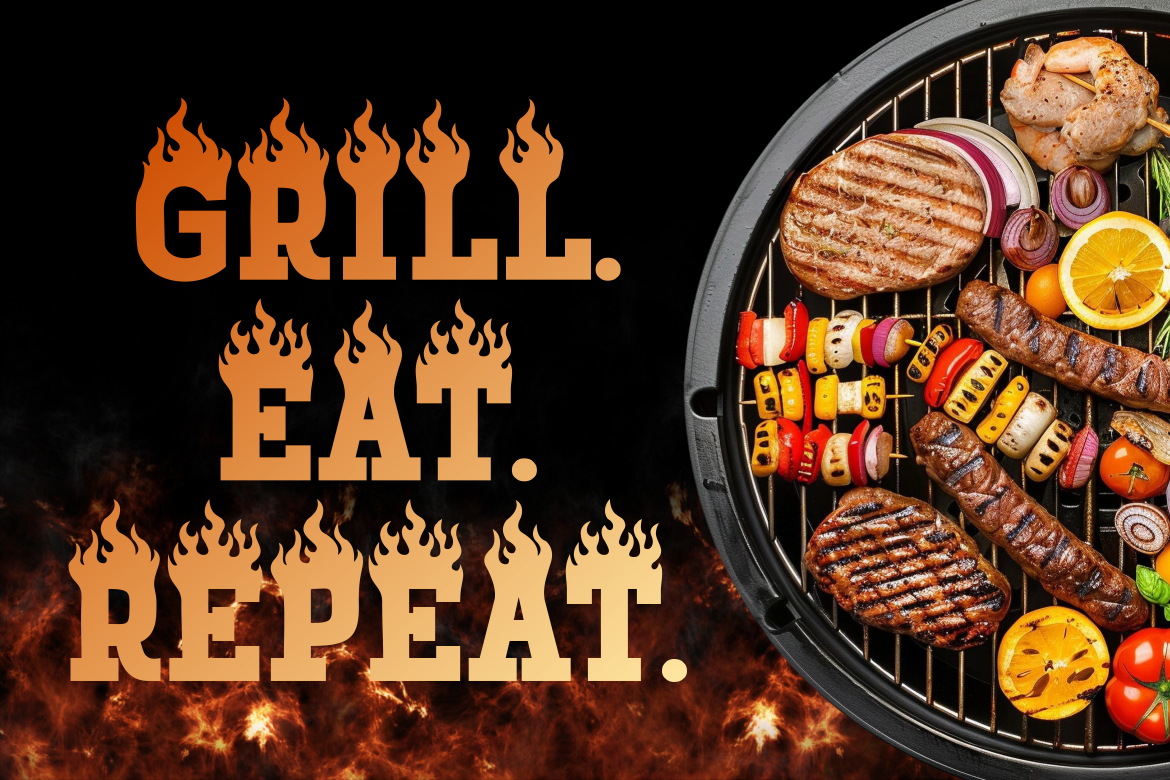
Fire Torch is a bold flame-inspired display font that immediately communicates heat, energy, and excitement. The dramatic fire effects built into the letterforms make it an excellent choice for food businesses that want to emphasize grilled, spicy, smoked, or flame-cooked products. It creates strong visual impact and works exceptionally well when used in large headlines, logos, and food packaging.
Pros
- Strong visual impact
- Instantly communicates heat
- Highly memorable
- BBQ restaurants
- Burger brands
- Hot sauce packaging
- Grill houses
- Food event posters
2. Noodle Factory Curly Food Font
Noodle Factory is a playful food-themed display font with unique curves and personality. The font creates a fun and approachable atmosphere while maintaining strong readability. Its distinctive style helps food businesses build memorable identities that stand out from competitors.
Pros
- Food-focused design
- Playful personality
- Excellent branding potential
- Memorable appearance
- Noodle brands
- Asian restaurants
- Food packaging
- Food trucks
- Casual dining businesses
3. Tierra Bonito Mexican Food Font
Tierra Bonito captures the vibrant and energetic spirit often associated with Mexican-inspired food branding. Its decorative details and cultural character help create an authentic and inviting visual identity.
Pros
- Strong thematic appeal
- Unique character
- Excellent cultural branding
- High visual recognition
- Mexican restaurants
- Taco brands
- Food festivals
- Packaging design
- Restaurant signage
4. Mochise Food Font
Mochise combines softness, friendliness, and modern food branding aesthetics. The rounded shapes create a welcoming and approachable appearance that appeals to broad audiences.
Pros
- Friendly personality
- Modern appearance
- Easy readability
- Versatile usage
- Dessert brands
- Beverage products
- Bakeries
- Snack packaging
- Family-oriented businesses
5. Snack Pillow Chunky Food Display Font
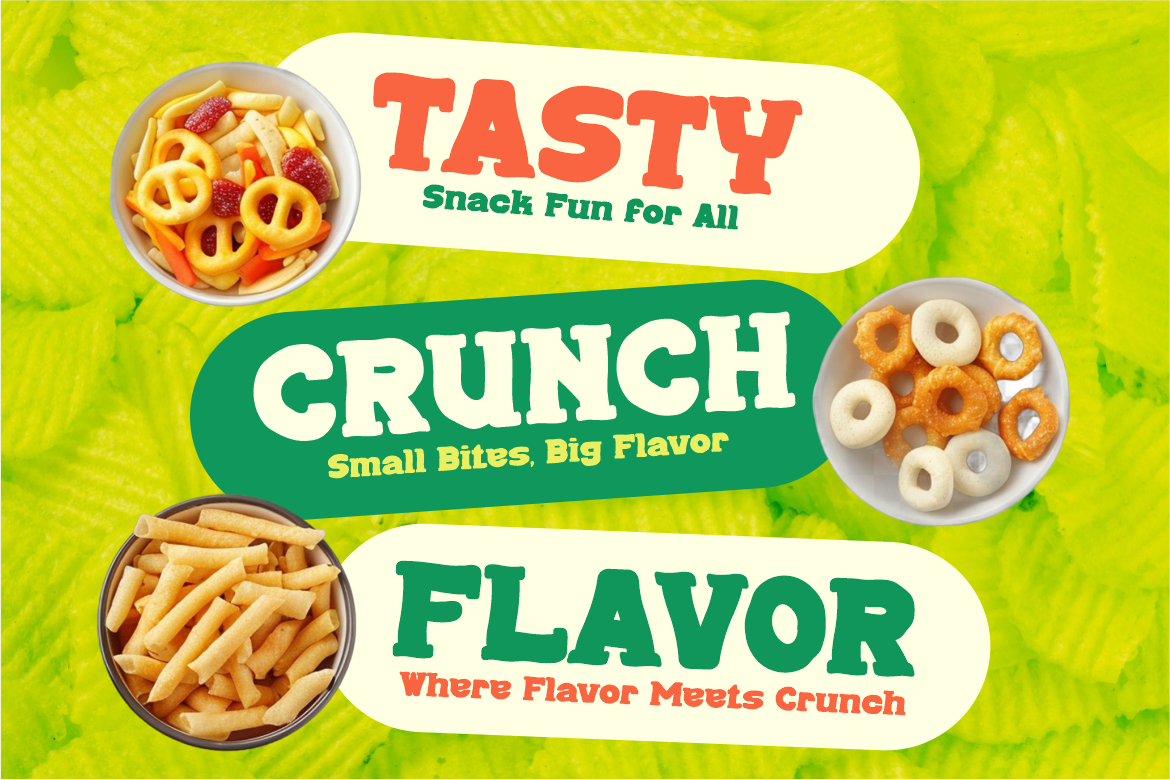
Snack Pillow features chunky letterforms that create a fun and appetizing visual style. The bold shapes immediately attract attention and make products feel approachable and enjoyable.
Pros
- Bold display impact
- Playful appearance
- Excellent shelf visibility
- Strong branding value
- Snack brands
- Candy packaging
- Children’s products
- Food promotions
- Retail packaging
6. Maison Veloria Condensed Font
Maison Veloria brings a more sophisticated and premium approach to food branding. The condensed structure allows elegant presentation while maximizing space on packaging and menus.
Pros
- Premium appearance
- Space-efficient design
- Excellent readability
- Modern elegance
- Fine dining restaurants
- Luxury food brands
- Wine labels
- Gourmet packaging
- Premium cafés
7. Samgye Style Bold Korean Style Font
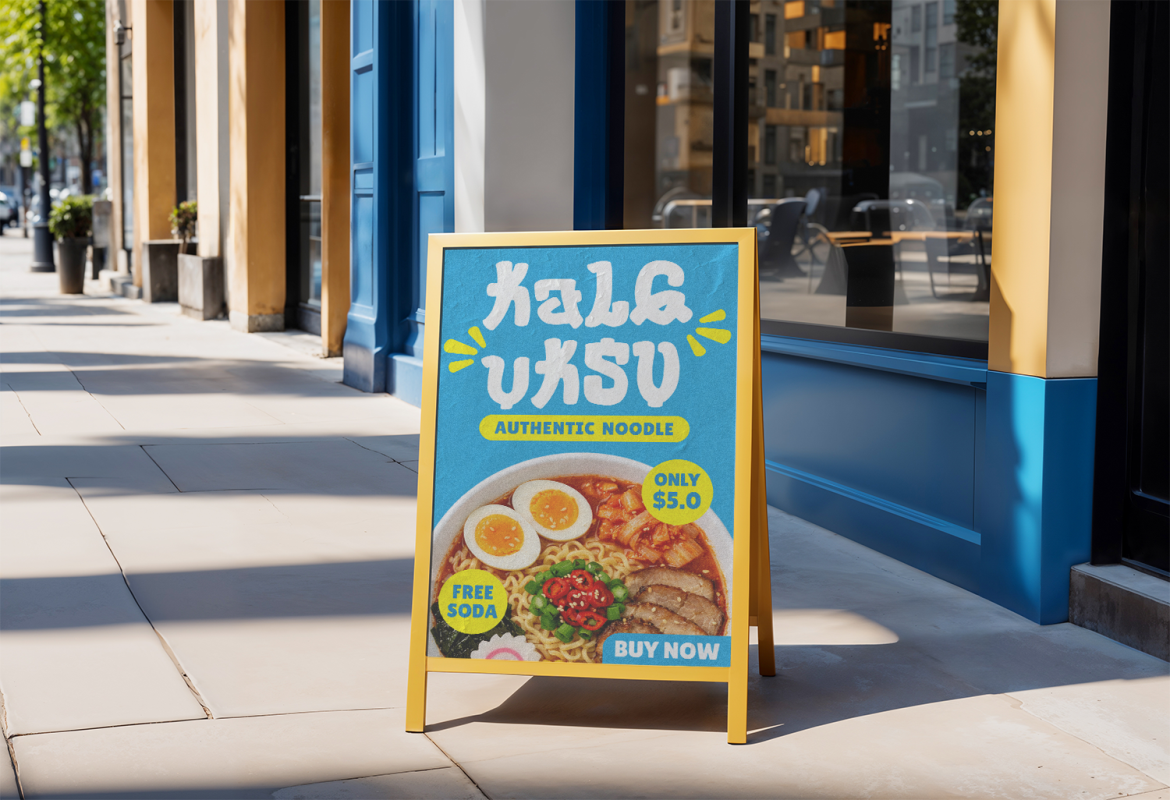
Samgye Style introduces a strong Korean-inspired visual identity that helps businesses establish cultural authenticity. Its bold structure and distinctive character make it highly effective for restaurant logos and promotional materials.
Pros
- Strong cultural identity
- Bold appearance
- Excellent branding power
- High memorability
- Korean restaurants
- Asian food brands
- Street food concepts
- Food packaging
- Restaurant promotions
8. Sweete Line Script Font
Sweete Line offers elegant script lettering that adds warmth and handcrafted charm to food branding. The flowing strokes create a personal and inviting impression.
Pros
- Handcrafted feel
- Elegant appearance
- Strong emotional appeal
- Excellent versatility
- Bakeries
- Dessert shops
- Chocolatiers
- Wedding cakes
- Boutique food brands
9. Melting Dessert Display Font (Free)
Melting Dessert is one of the most creative dessert-themed fonts available. The melting letterforms instantly communicate sweetness, fun, and indulgence. Its whimsical style makes it perfect for brands that want to create playful and memorable packaging or promotional materials. The font also includes alternative characters and multilingual support, increasing its design flexibility.
Pros
- Free font option
- Unique melting effect
- Playful personality
- Excellent display font
- Ice cream brands
- Dessert shops
- Candy products
- Bakery packaging
- Children’s food products
10. Redfire Display Flame Font
Redfire combines aggressive flame-inspired details with bold display typography. It is designed to grab attention instantly and create excitement around food products.
Pros
- Strong visibility
- High-energy appearance
- Excellent promotional font
- Memorable branding
- BBQ businesses
- Fast food brands
- Spicy products
- Food festivals
- Event promotions
11. Wingo Food Font
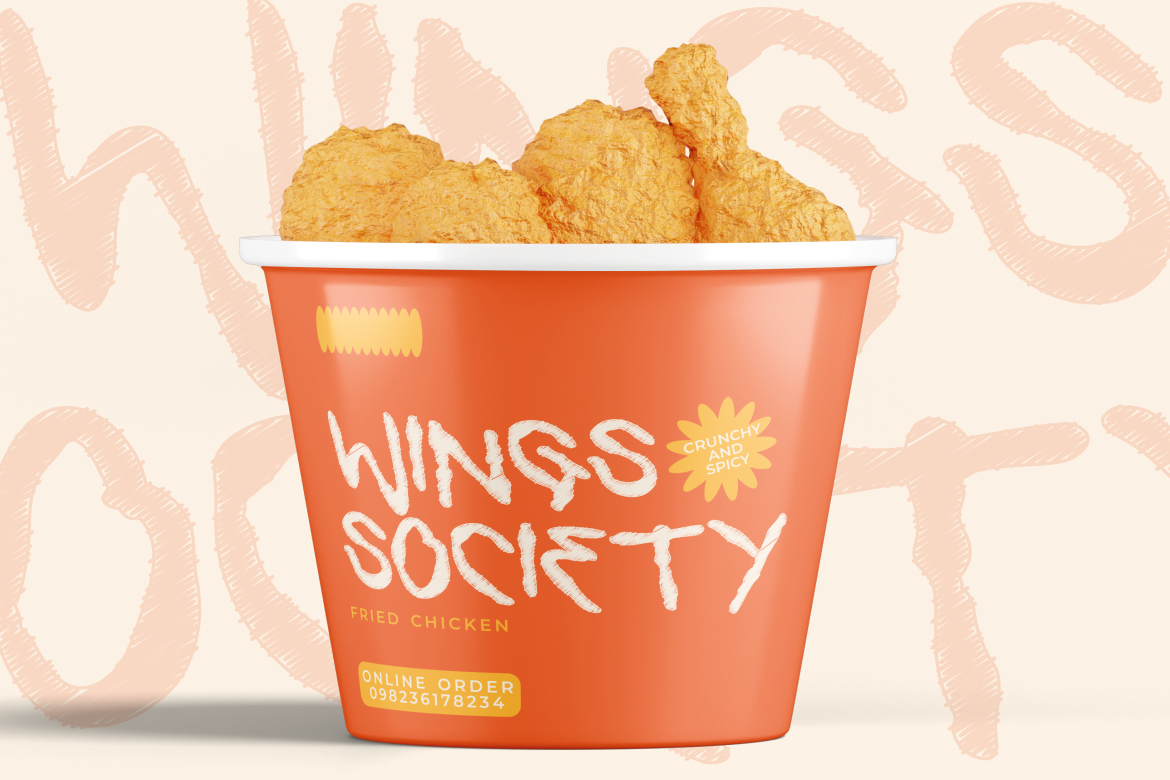
Wingo is a dedicated food font that balances playfulness and professionalism. Its friendly structure helps food brands appear approachable while maintaining strong visual consistency across branding materials.
Pros
- Food-focused design
- Excellent readability
- Friendly personality
- Versatile branding use
- Restaurants
- Food packaging
- Food startups
- Catering businesses
- Product branding
Comparison
| Font | Style | Personality | Best Industry |
|---|---|---|---|
| Fire Torch | Flame Display | Bold & Hot | BBQ & Grill |
| Noodle Factory | Curly Food Font | Playful | Noodle Brands |
| Tierra Bonito | Cultural Display | Vibrant | Mexican Food |
| Mochise | Rounded Food Font | Friendly | Desserts & Snacks |
| Snack Pillow | Chunky Display | Fun | Snack Brands |
| Maison Veloria | Condensed Elegant | Premium | Gourmet Brands |
| Samgye Style | Korean Display | Authentic | Korean Food |
| Sweete Line | Script Font | Handmade | Bakeries |
| Melting Dessert | Playful Display | Sweet | Desserts |
| Redfire | Flame Display | Energetic | Fast Food |
| Wingo | Food Branding Font | Friendly | General Food Branding |
Best Overall Picks
This is Best for Food Packaging
- Wingo
- Maison Veloria
- Noodle Factory
If You Want Best for Restaurant Logos
- Samgye Style
- Wingo
- Tierra Bonito
This Font is Best for Dessert Branding
- Melting Dessert
- Sweete Line
- Mochise
Best for BBQ and Grill Brands
- Fire Torch
- Redfire
Best Free Food Fonts
- Fire Torch
- Melting Dessert
Common Mistake
One of the biggest mistakes food business owners make is selecting fonts based purely on appearance without considering brand personality. A font might look attractive on its own but fail to communicate the right message about the food experience. For example, a luxury restaurant using a playful cartoon font may struggle to establish credibility, while a children’s snack brand using an overly formal typeface may appear less approachable. Typography should reinforce the emotions and expectations customers associate with the product.
Another common mistake is using too many fonts across menus, packaging, logos, and advertising materials. Excessive font variety creates inconsistency and weakens brand recognition. Successful food brands often limit themselves to a primary display font and one or two supporting typefaces. This approach creates a cohesive visual identity that customers can easily recognize across different platforms and products. Consistency becomes even more important as businesses expand into packaging, delivery services, social media marketing, and retail distribution.
Many entrepreneurs also underestimate the importance of packaging typography. While product quality remains essential, packaging is often the first interaction consumers have with a brand. The right font can help communicate professionalism, quality, and flavor before customers even taste the product.
Conclusion
The best food fonts do more than display text. They help communicate flavor, personality, quality, and brand identity. Whether you’re building a restaurant, bakery, café, food truck, snack brand, beverage company, or packaged food business, typography can become one of your most valuable branding assets.
From the playful creativity of Noodle Factory and Melting Dessert to the premium sophistication of Maison Veloria and the cultural authenticity of Samgye Style, each font offers unique opportunities to strengthen your visual identity. Meanwhile, free options like Fire Torch and Melting Dessert provide excellent starting points for entrepreneurs working with limited budgets.
As competition in the food industry continues to grow, memorable typography can help your brand stand out on shelves, menus, websites, and social media. Choosing the right food font is not just a design decision, it is a branding investment that supports long-term recognition and business growth.